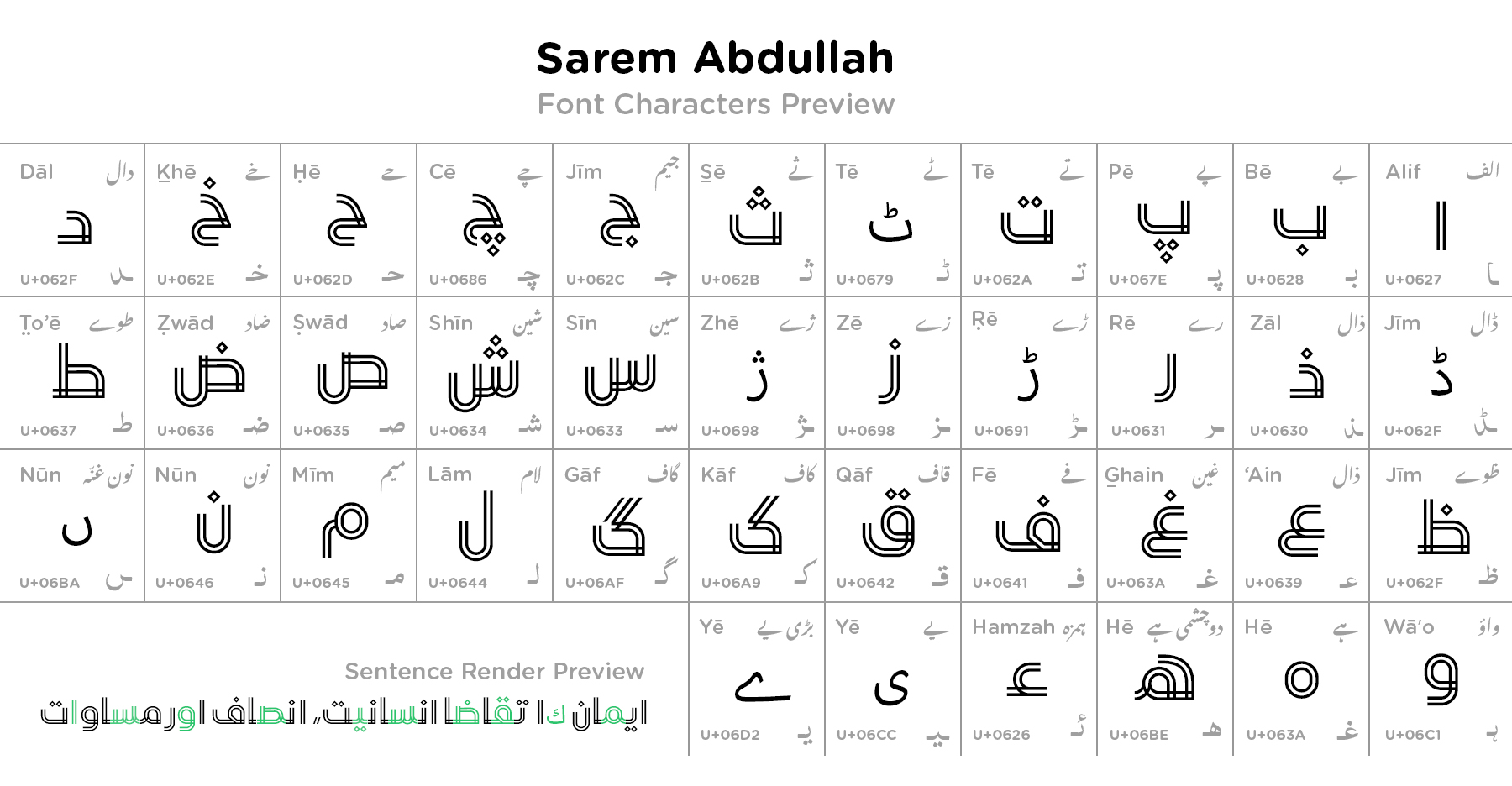
In the era of electronic media, where content creation and personal expression matter, unique typography has the ability to make your posts stand out. Sarem Abdullah is an open-source True-type Sindhi font that can be used for various purposes, such as making appealing posts, magazine layouts, branding, and logos. With its clear Middle Eastern inspirations, it’s ideal for your various creative works in Arabic, Urdu, Persian, Sindhi, and Pushto. The letters of the font are condensed with geometrical strokes therefore it may not be suitable for longer texts or to use in in body texts. The font can easily be downloaded for free from a number of trustworthy sources and is offered in Medium (Normal) font weight. However, to use it for commercial purposes, you need to contact the designer of this font. This font has 622 glyphs and is particularly useful for creating eye-catching headers. Moreover, the most up-to-date upgrades confirm its compatibility with the latest Unicode standards. Thus, making it perfect for various creative writing purposes.